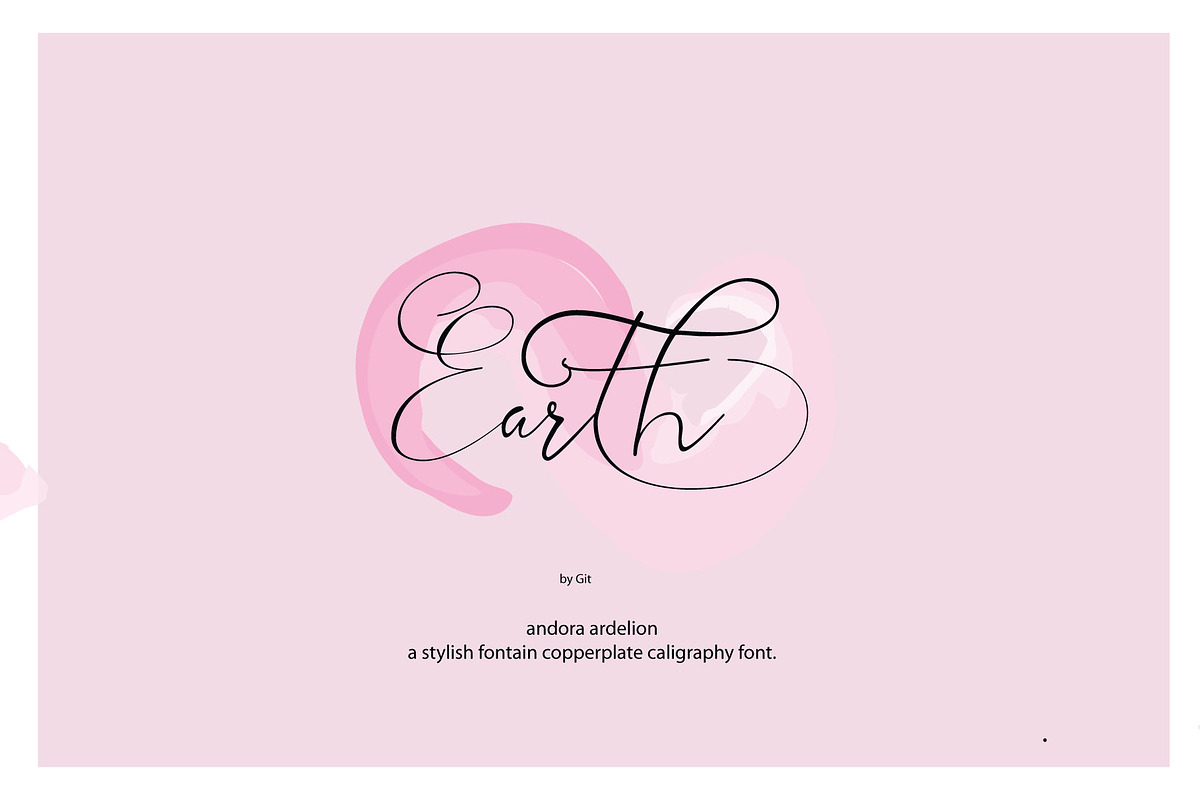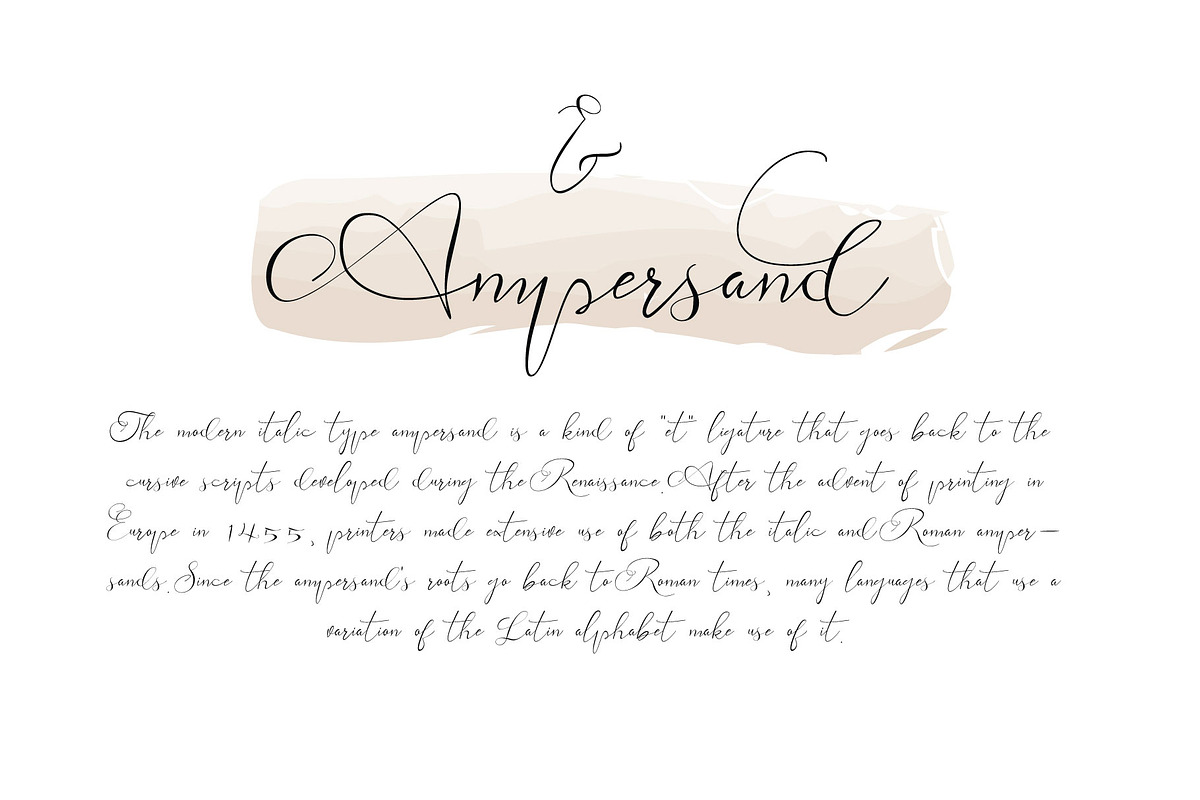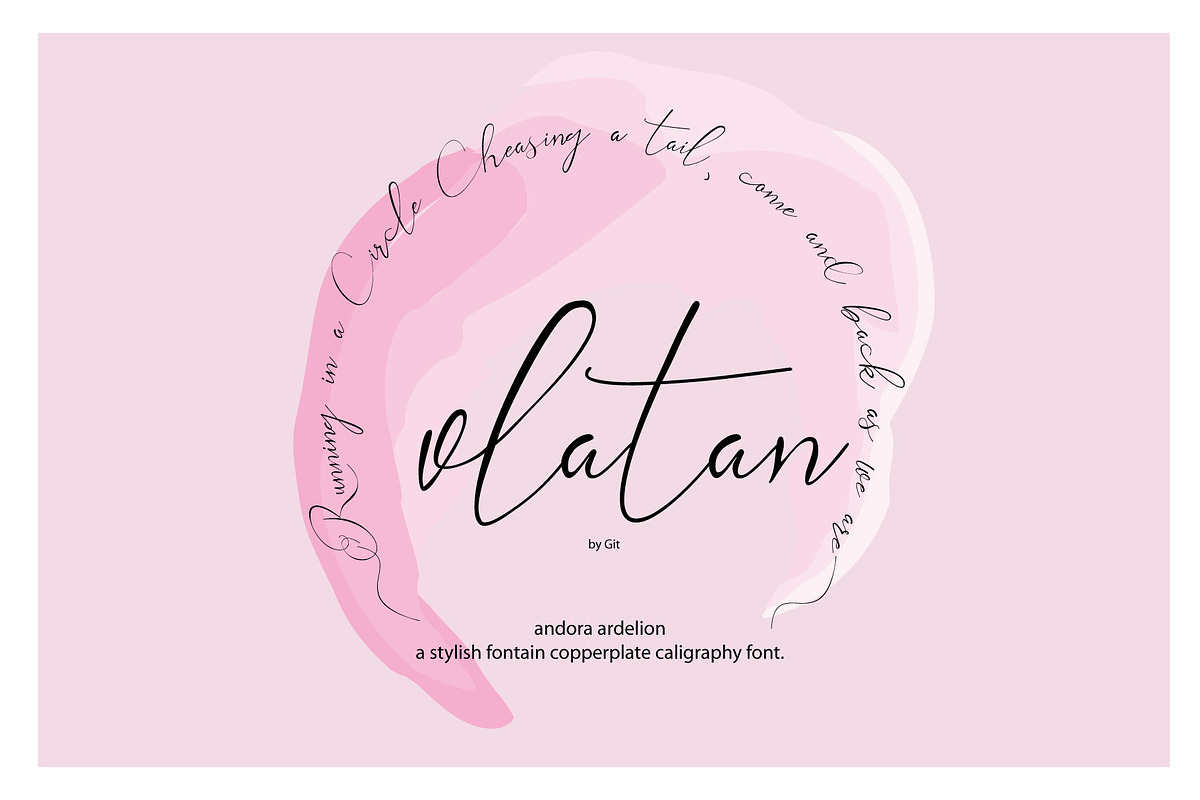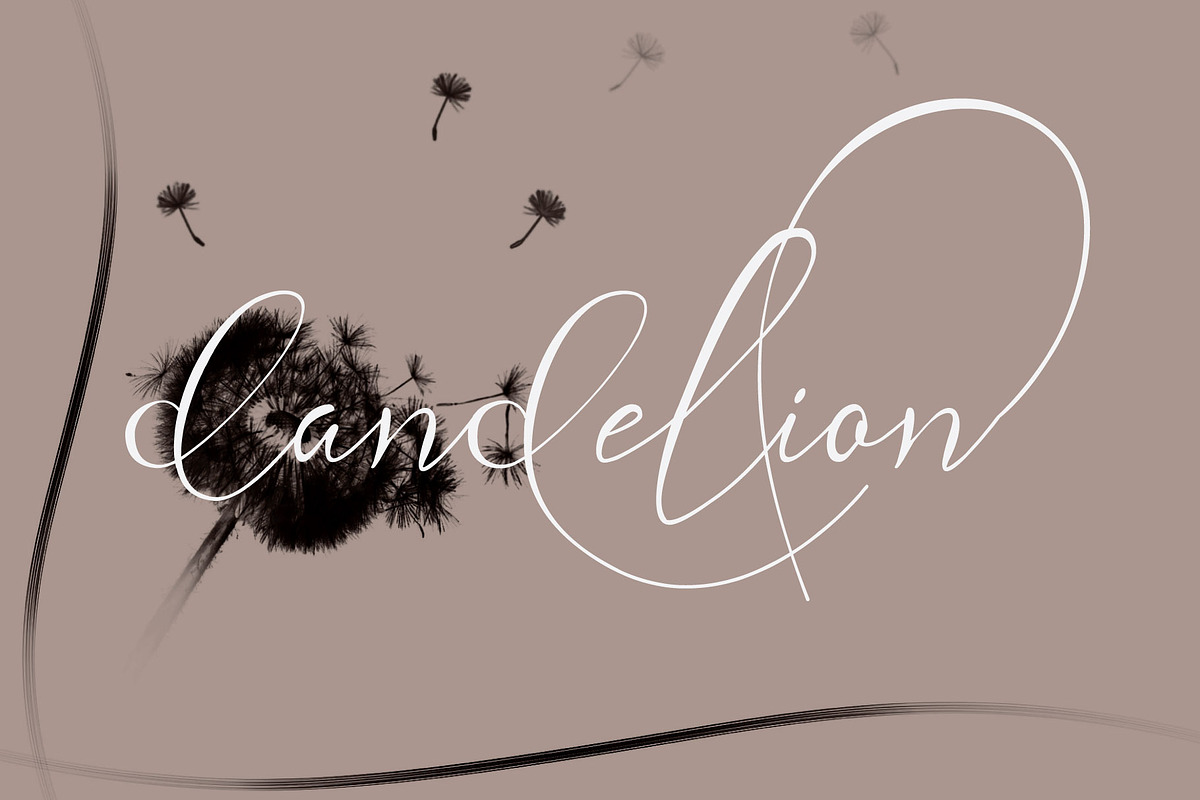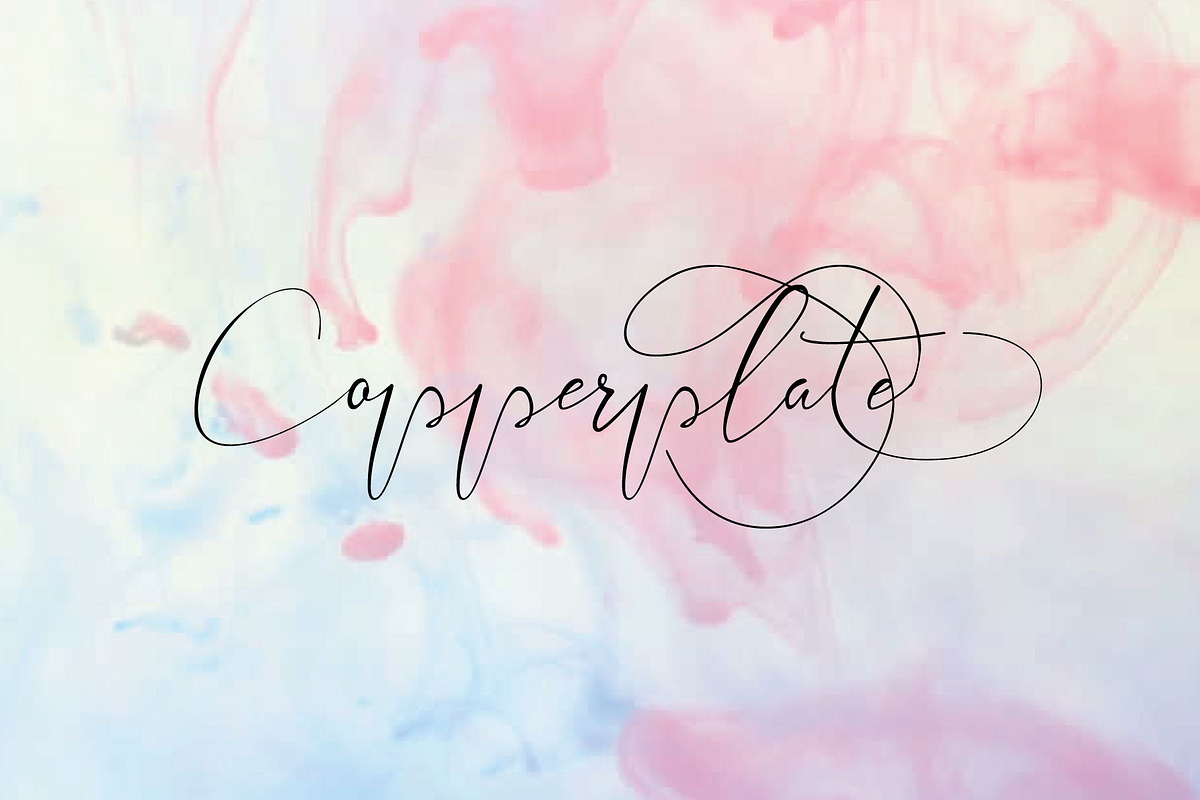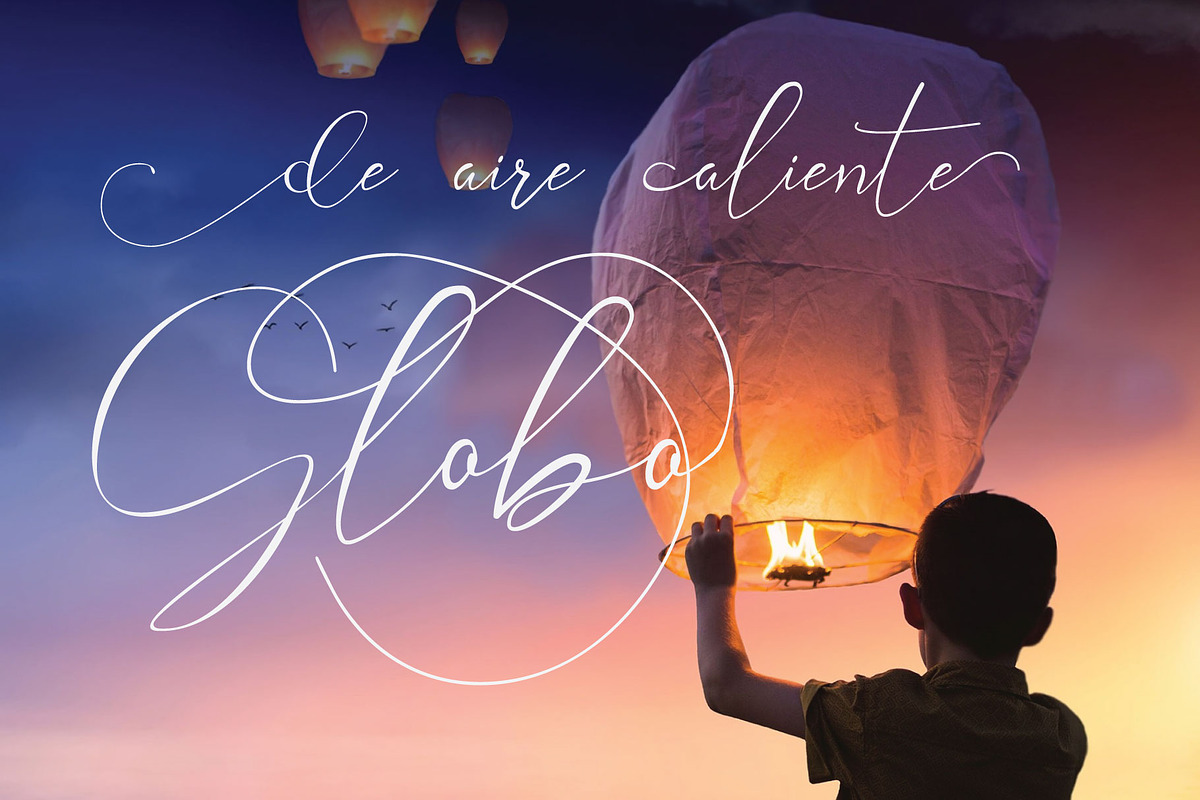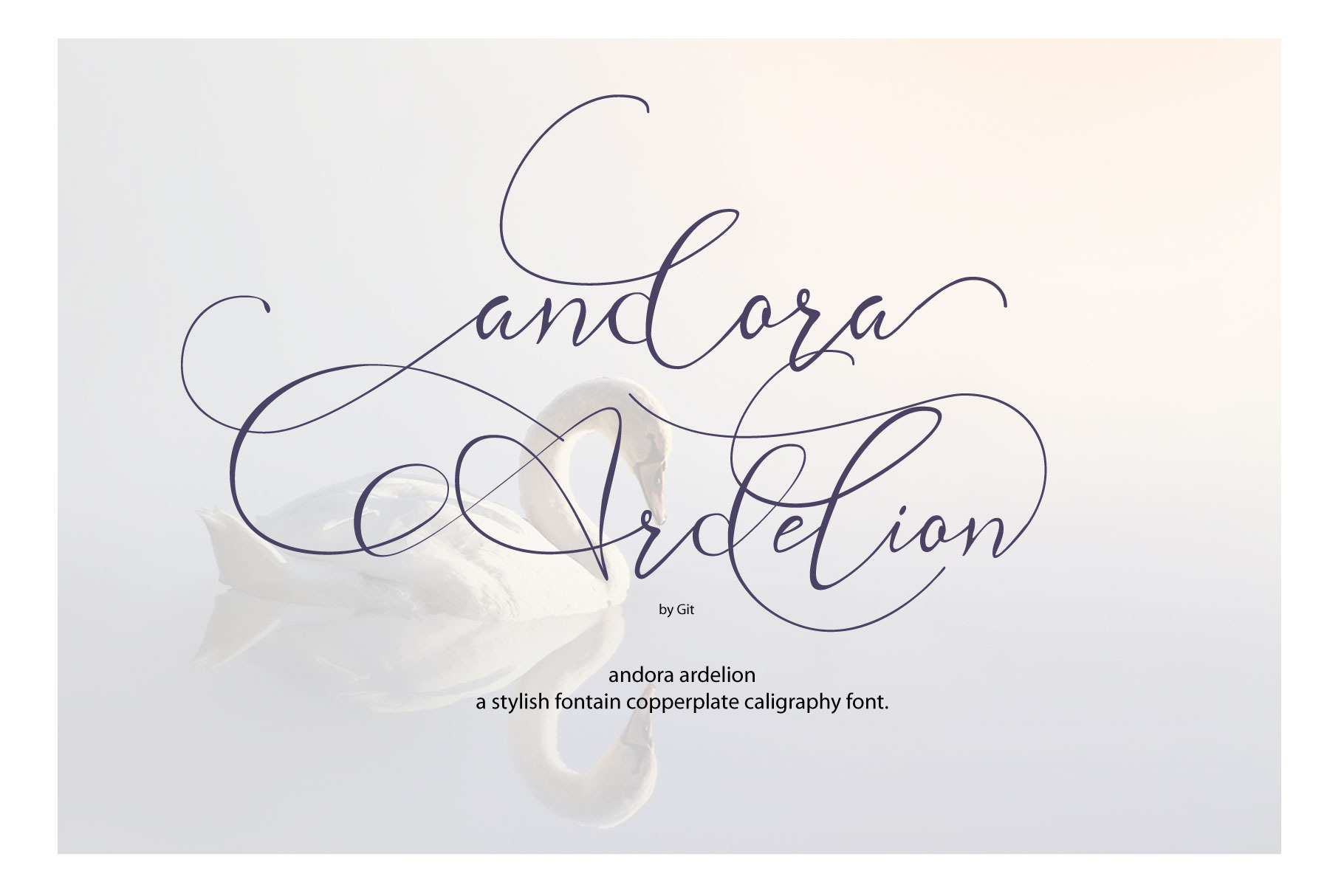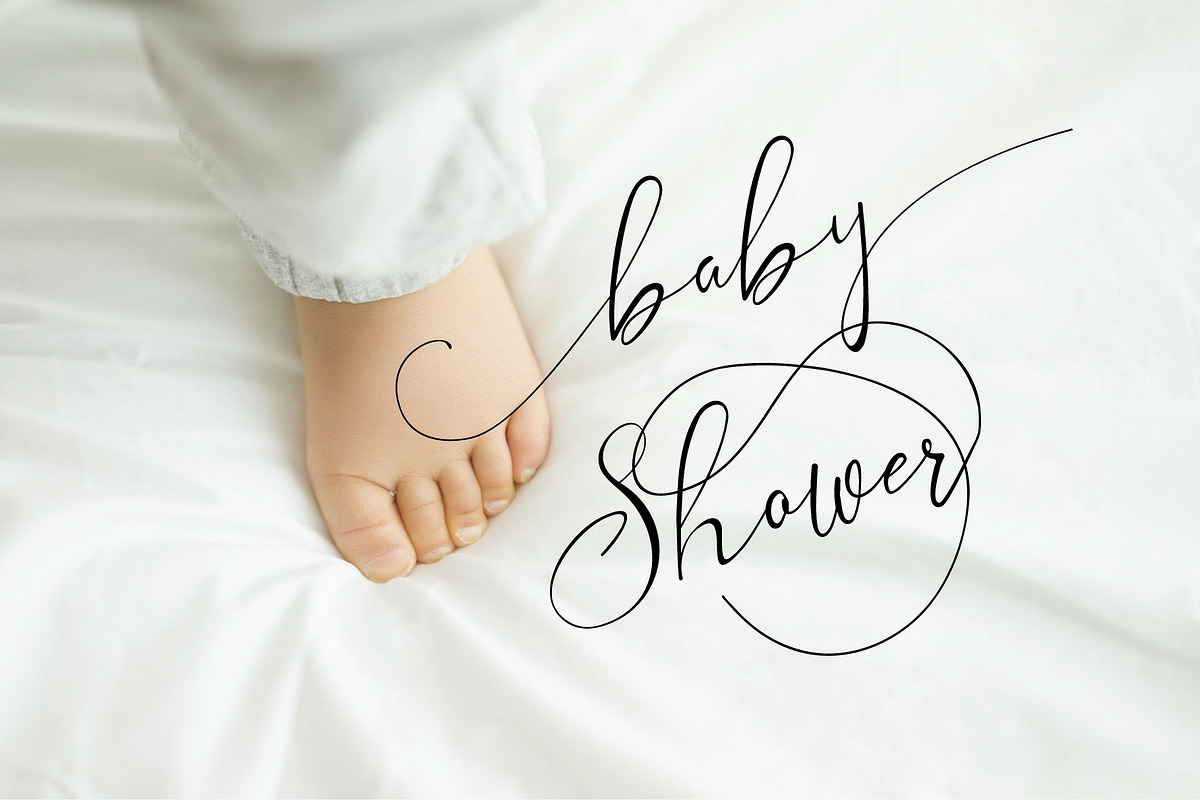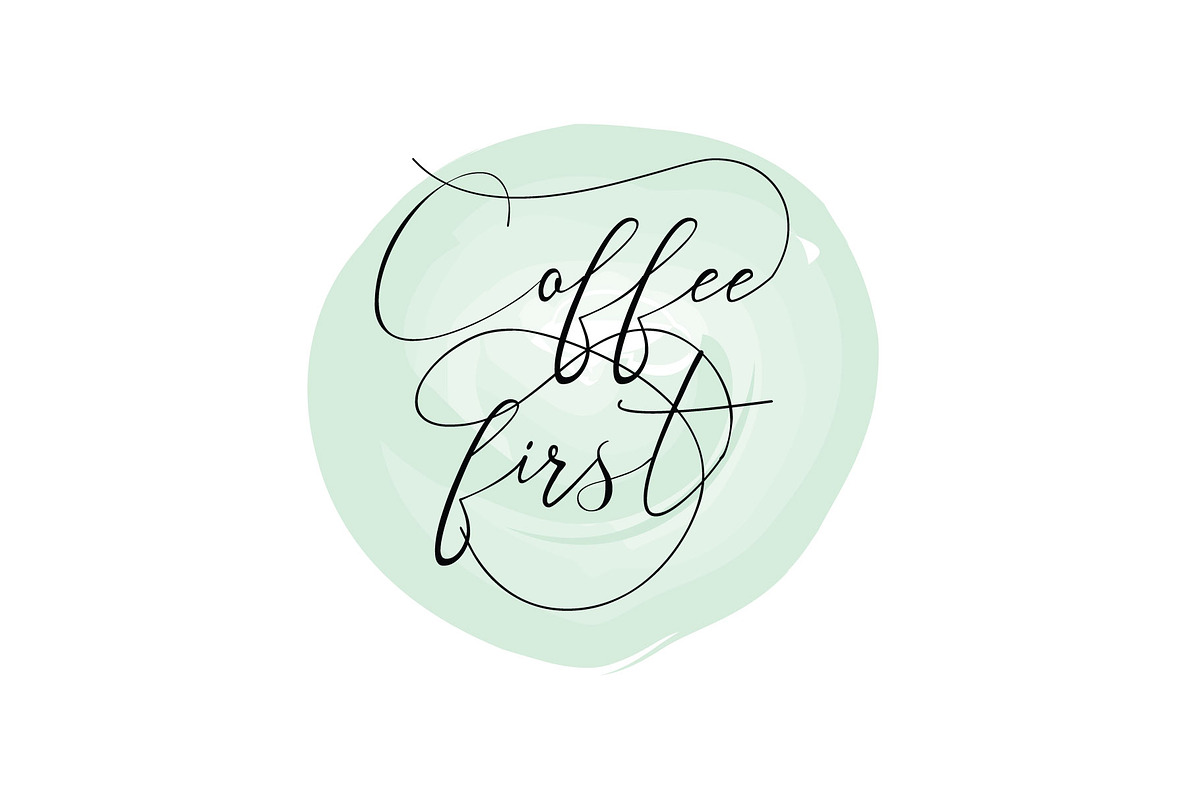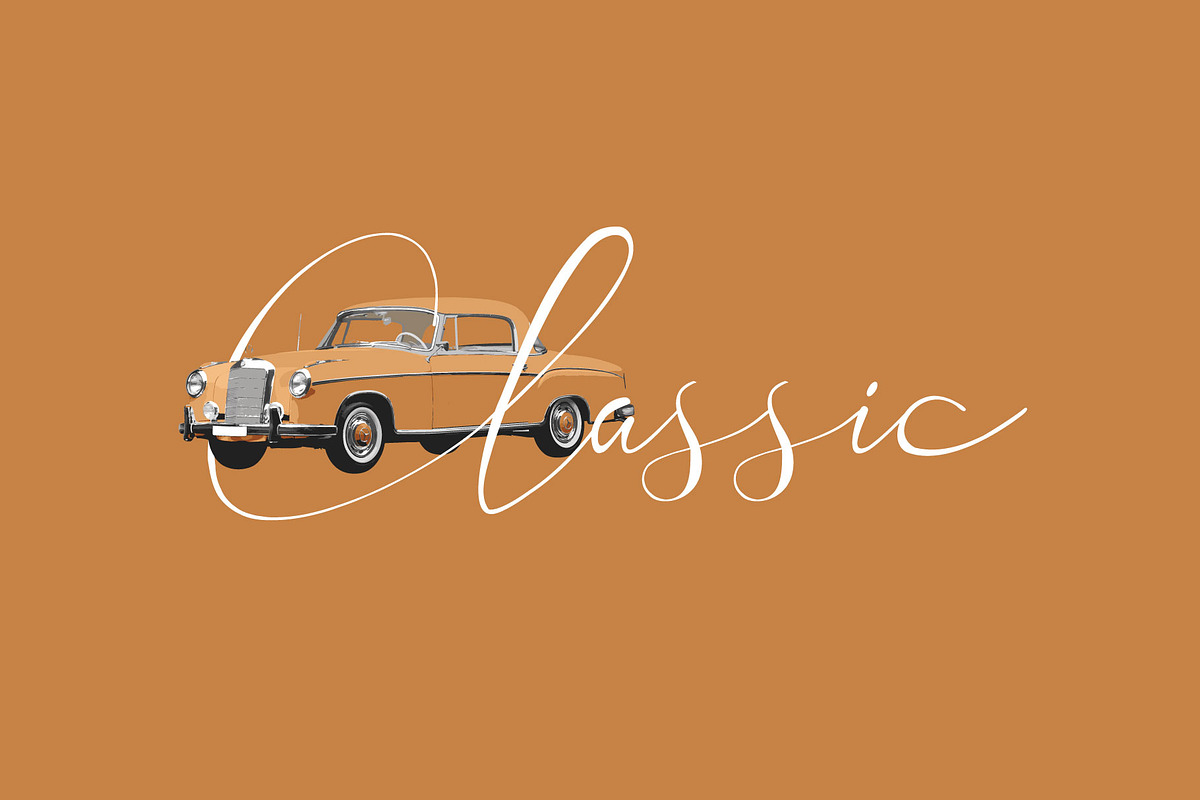
Andora Ardelion - copperplate font
Andora Ardelion is a luxurious copperplate calligraphy font that combines timeless elegance with a fresh, modern touch. Inspired by classic handwritten calligraphy, this sophisticated script features graceful curves, smooth flowing strokes, and beautifully crafted letterforms that instantly elevate any design. Its refined style makes it an excellent choice for projects that require a premium, stylish, and romantic appearance.
Designed with a rich collection of decorative swashes and elegant alternates, Andora Ardelion allows you to create stunning typography with ease. Whether you're designing wedding invitations, luxury branding, logos, cosmetic packaging, greeting cards, certificates, fashion editorials, social media graphics, or premium product labels, this font delivers a polished and professional look that captures attention.
The balanced letter spacing ensures excellent readability while maintaining the authentic beauty of traditional copperplate calligraphy. Andora Ardelion is also suitable for signature logos, stationery, book covers, magazine headlines, event branding, and personalized gifts. With multilingual support and high-quality OpenType features, this versatile font gives designers the creative freedom to craft unique and memorable typography.
If you're looking for a premium calligraphy font that blends classic sophistication with modern versatility, Andora Ardelion is the perfect choice to add elegance, charm, and ornamental beauty to every creative project.